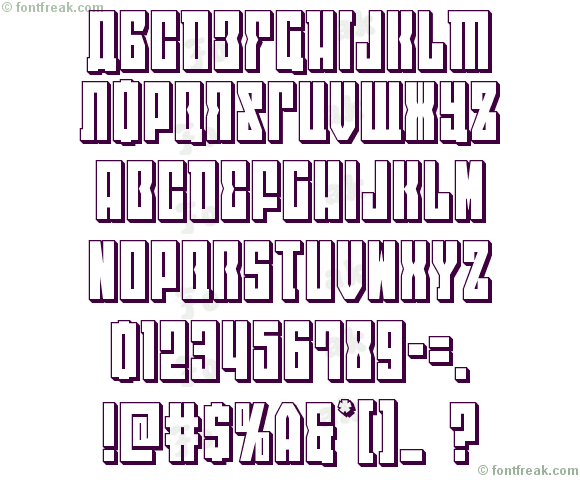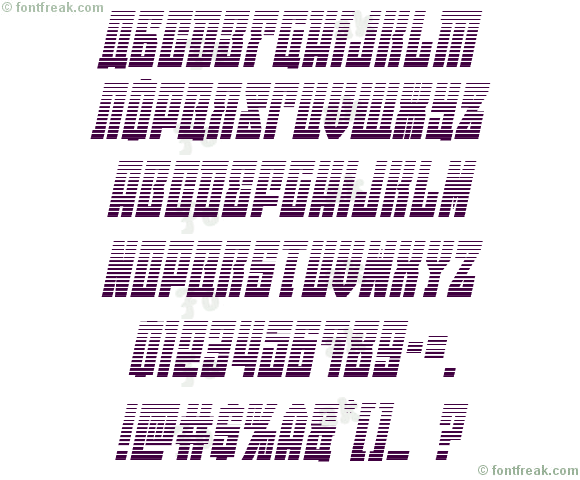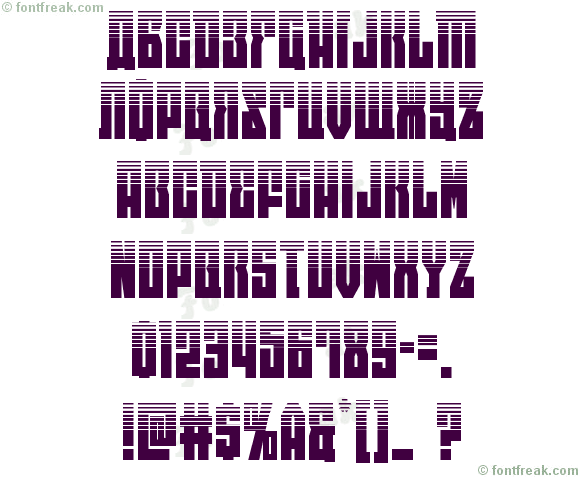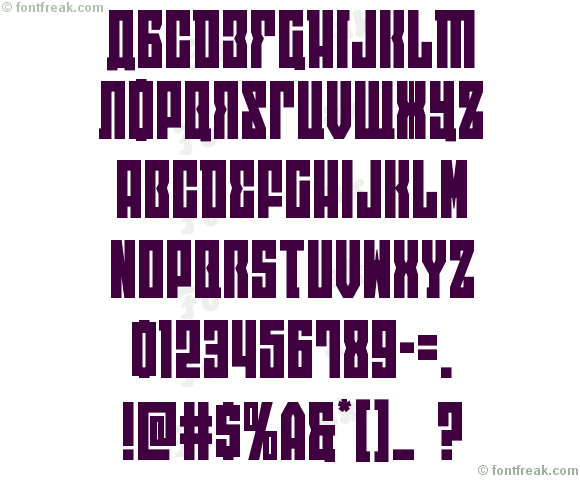
EAST-west
About EAST-west
EAST-west is a striking display font designed by Daniel Zadorozny, categorized as a decorative typeface that captures attention with its bold and innovative style. Released in 2014, this font features a unique blend of halftone and laser-inspired elements, creating a visually engaging experience. The stroke weight is robust, providing a strong presence, while the condensed letterforms lend a sense of modernity and sophistication. The gradient effects enhance its three-dimensional appearance, making it perfect for designs that require a touch of flair.
The EAST-west font is versatile, making it suitable for various applications. It shines in movie posters, where its dynamic characteristics can convey themes of action or adventure. Additionally, it is an excellent choice for music event flyers, capturing the essence of contemporary culture. Restaurant menus can benefit from its unique aesthetic, drawing in customers with its eye-catching design. Graphic designers will find it valuable for branding projects, allowing businesses to stand out in competitive markets. Content creators looking to elevate their social media graphics will appreciate the font's ability to communicate bold ideas effortlessly.
In conclusion, EAST-west stands out due to its unique fusion of artistic elements and practicality. Its eye-catching design is not only visually appealing, but it also offers flexibility across diverse projects, making it a must-have for anyone looking to elevate their typography game.